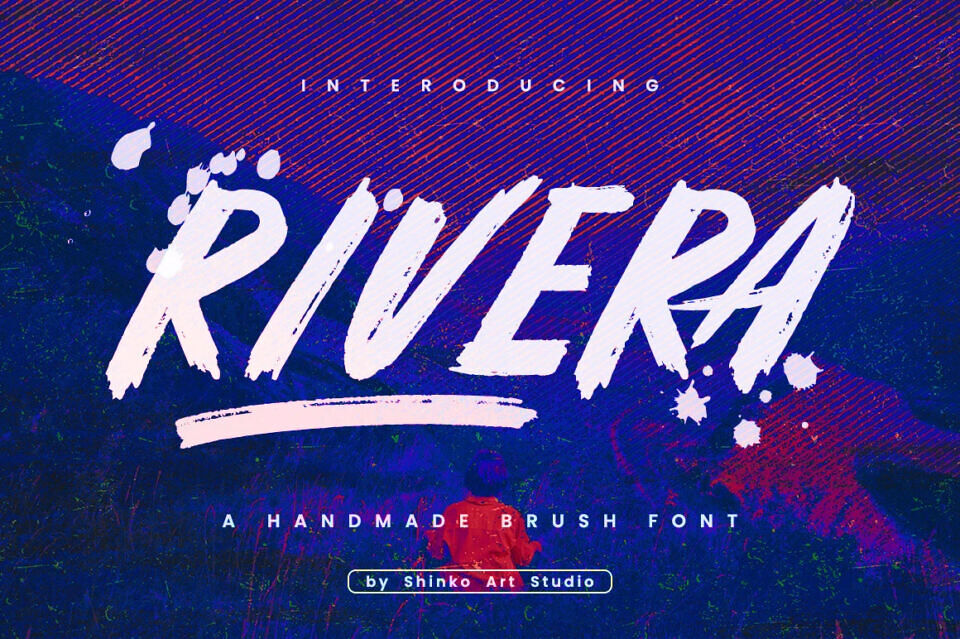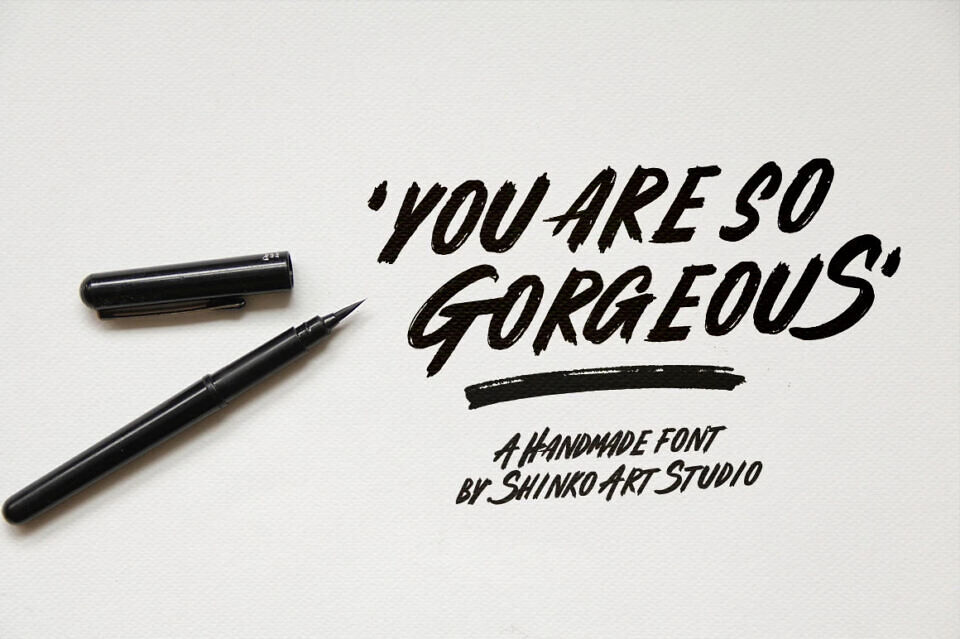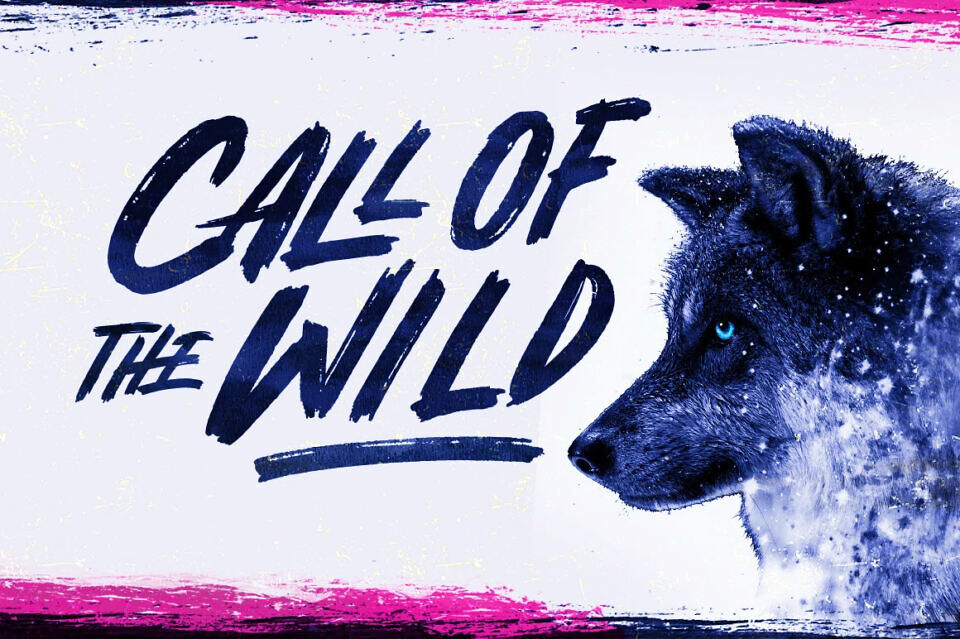
Rivera Font
Rivera is a bold, textured brush font by Shinko Art Studio, featuring gritty, hand-painted strokes that bring dynamic energy and raw authenticity to designs.
It includes uppercase, lowercase, numerals, punctuation, alternates, and ligatures—around 90 glyphs—ideal for logo design, headlines, packaging, or social media visuals. The distressed, rough-edged typography exudes urban, grunge appeal with a modern artistic twist.